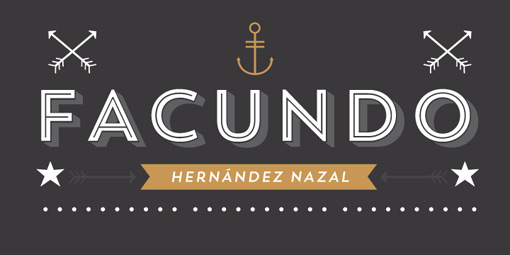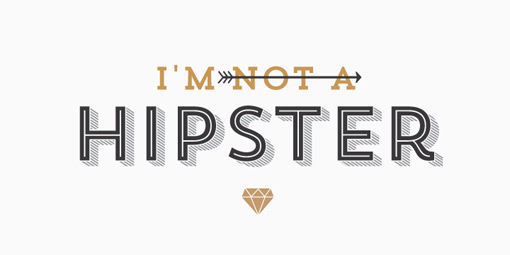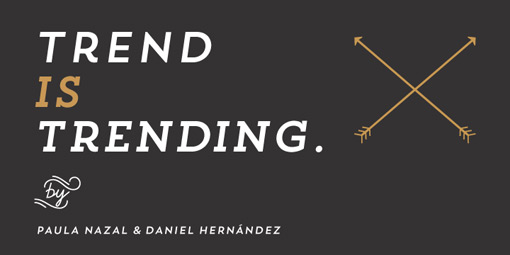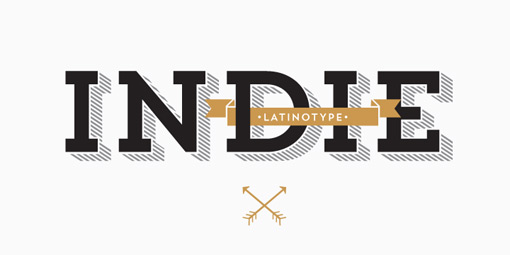
The layered type trend has certainly taken off in the last year or so. (See Detroit, Valuco, Frontage.) Now Latinotype has contributed their version to the pool, with the appropriately named Trend, which features both serif and slab serif styles. Pick it up at MyFonts.